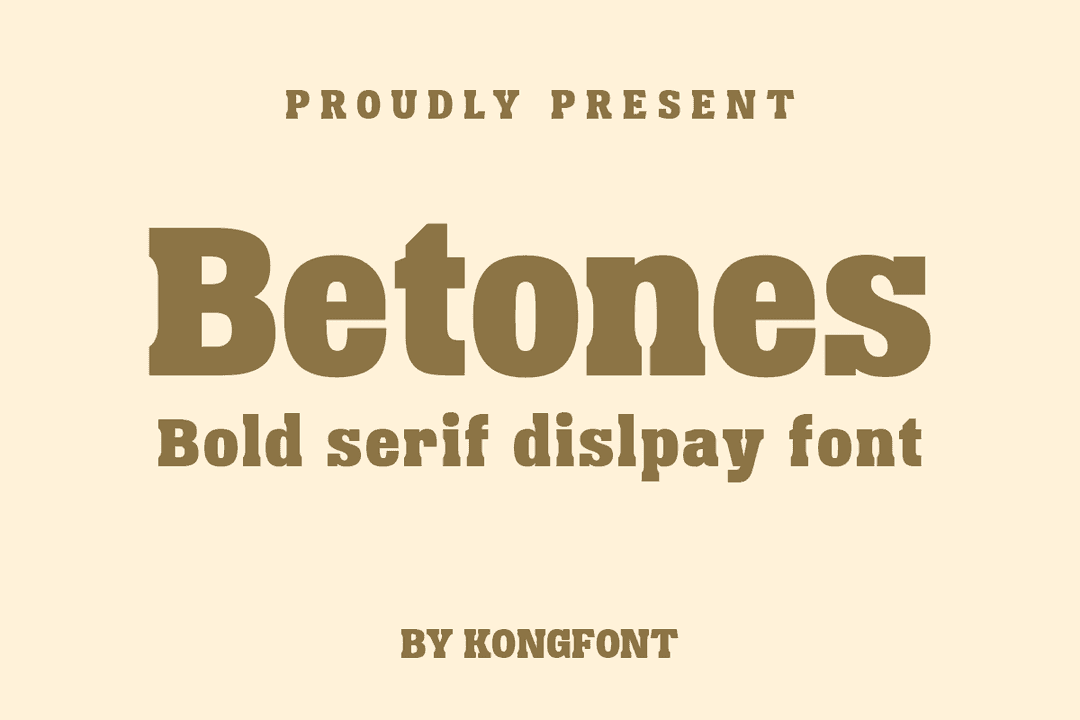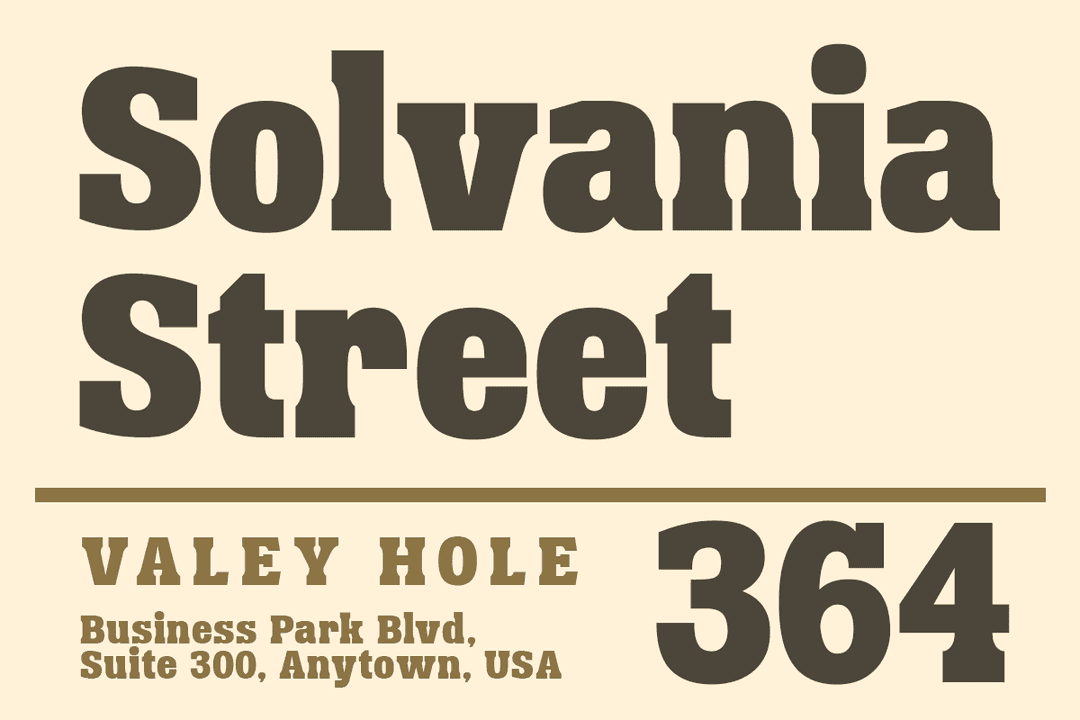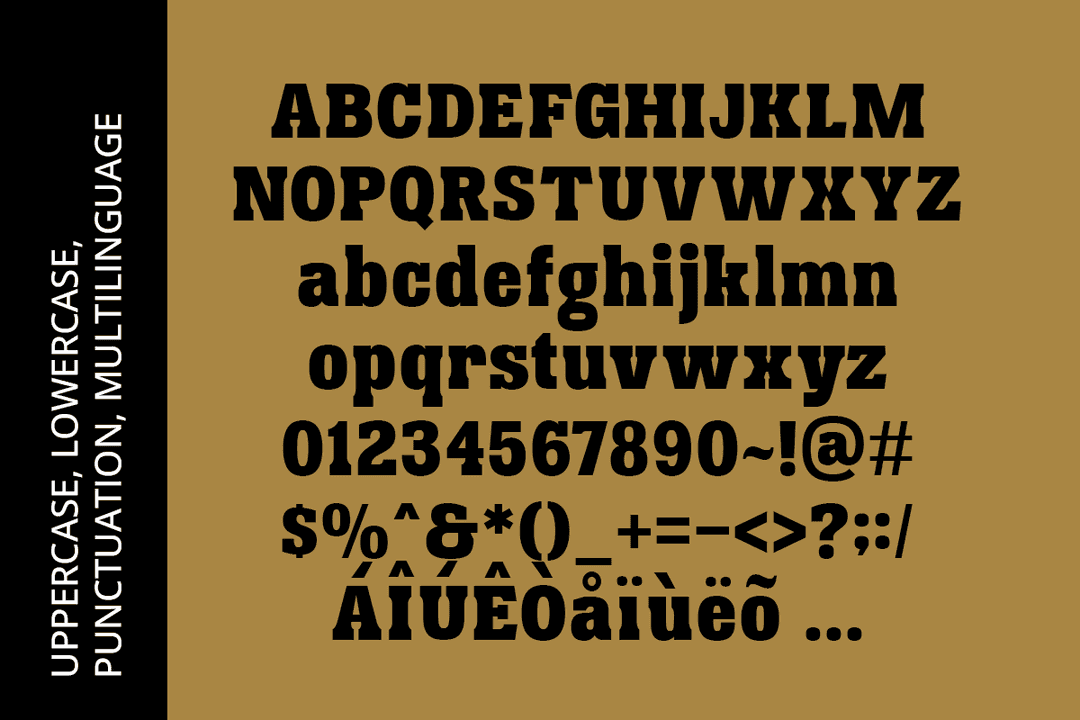
Betones is a display serif font which gives a strong and elegant look to any design project to make it trendy. These fonts are easy to read and artistic; hence, it can be used for various purposes by different people. This font is best used as it has moderate amount of serifs. This font, Betones Modern Classy Serif Bold Font is classified under the serif type of font.